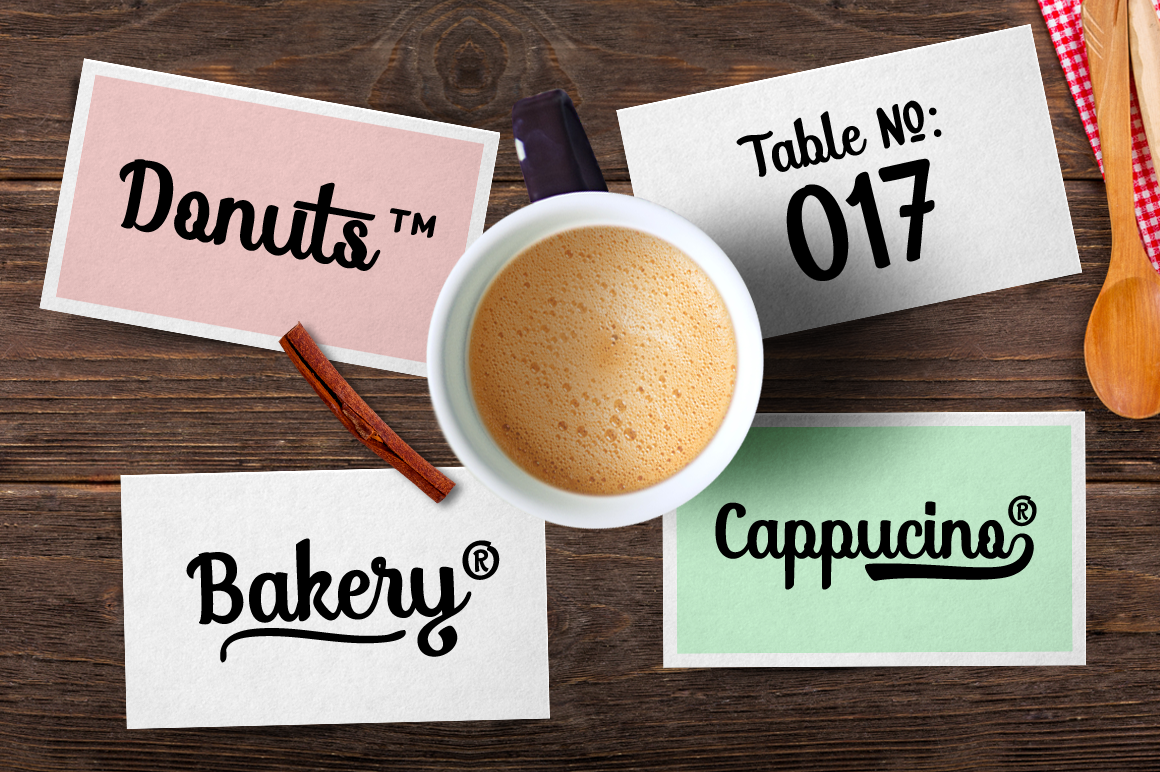
Free Soybeanut Brush Script Font
Featuring a free soybeanut – brush script font. This is a downloadable free font file brought to you by Pixelify. Showcase your designs like a graphic design pro by adding a new touch with this cool font.